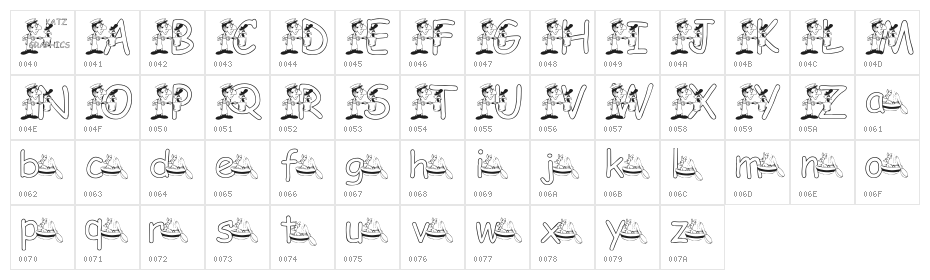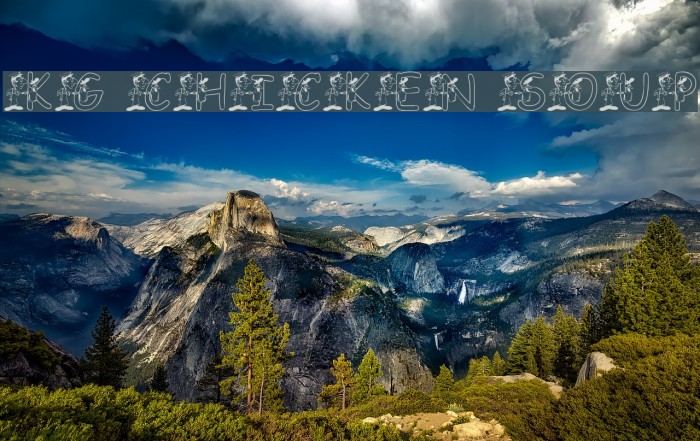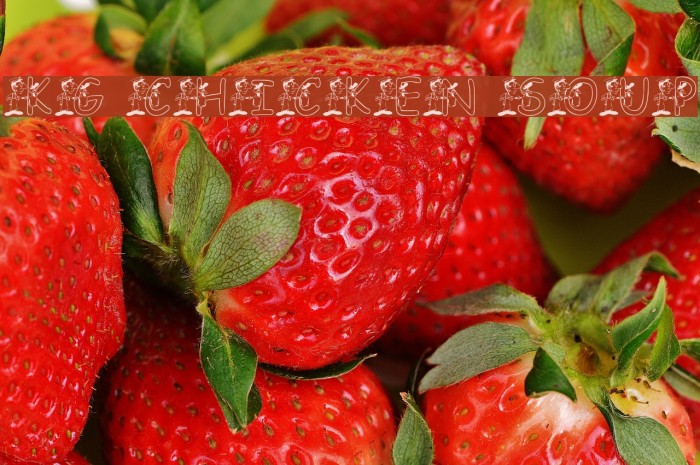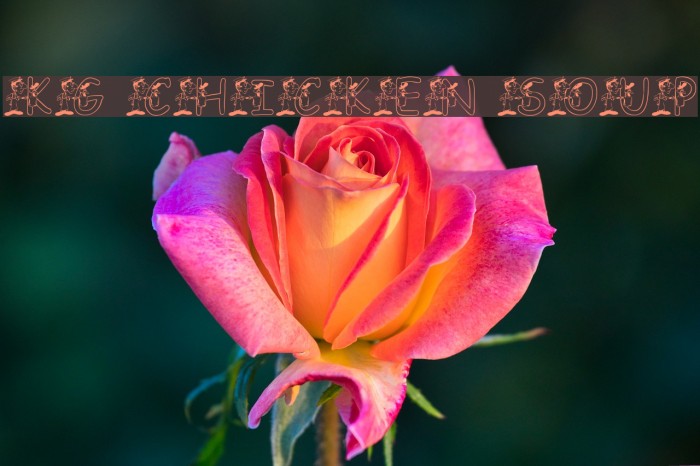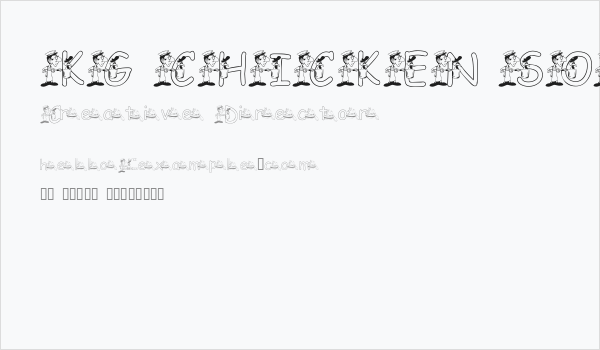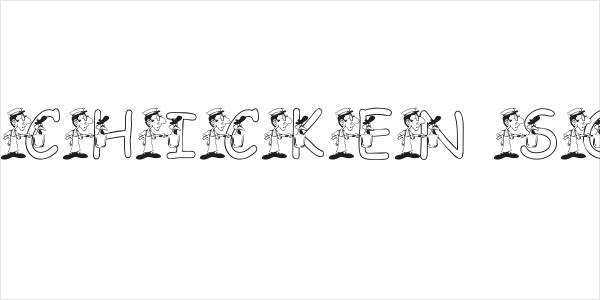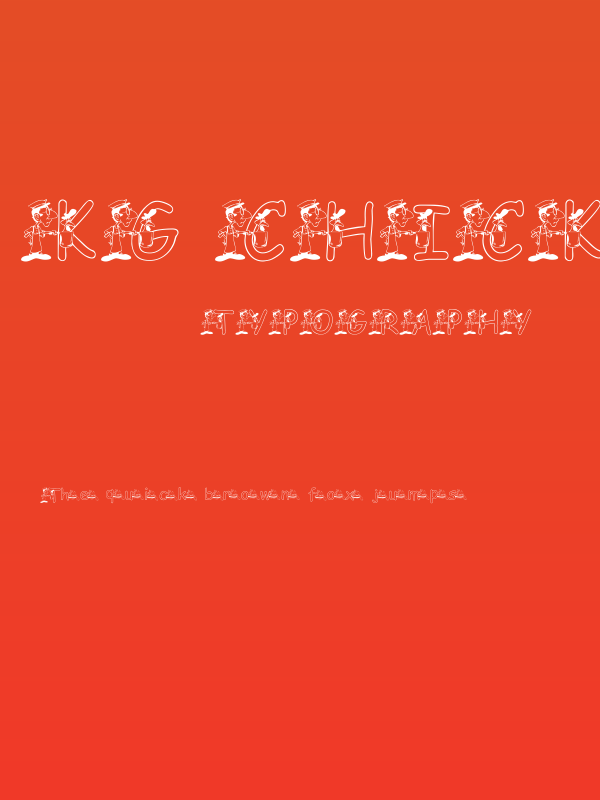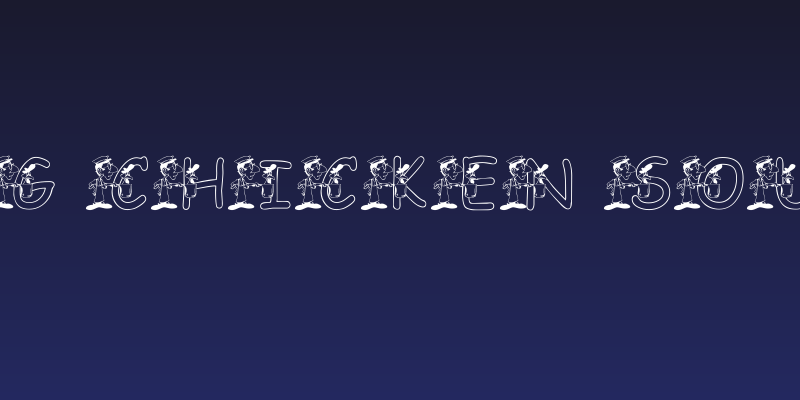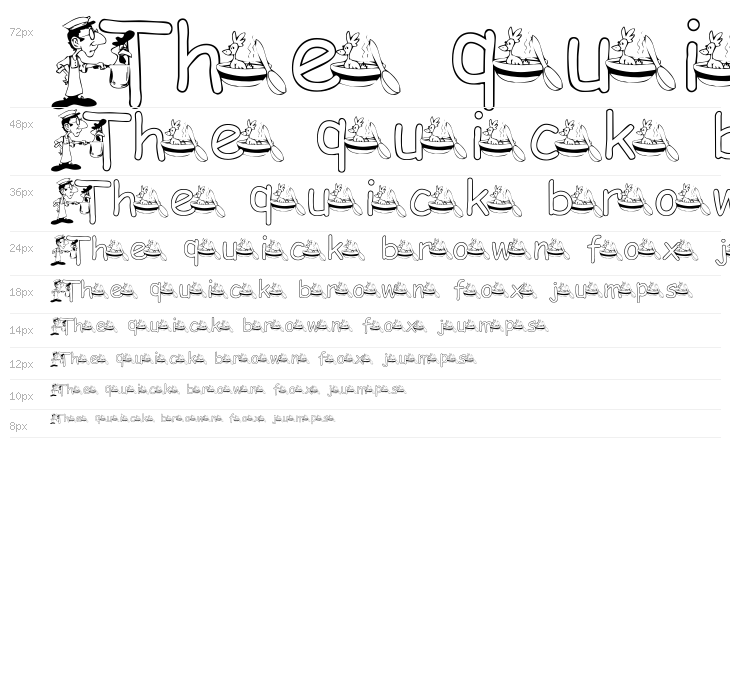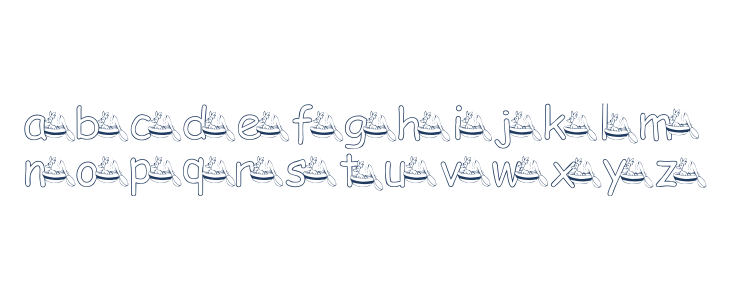
KG CHICKEN SOUP Font
KG CHICKEN SOUP Description
This playful and whimsical font features a unique design where each character is integrated with a cartoonish chicken motif. The letters are bold and outlined, with the chicken elements adding a decorative touch that makes the font stand out. The characters maintain a consistent height and width, ensuring readability while still offering a fun and engaging visual experience. This font is perfect for projects that require a lighthearted and humorous tone, such as children's books, playful branding, or themed event invitations.
| Overall Style | Playful and Whimsical |
| Use Case | Headlines, Logos, Decorative Text |
| Proposed Projects | Ideal for children's books, playful branding, themed event invitations, and educational materials. |